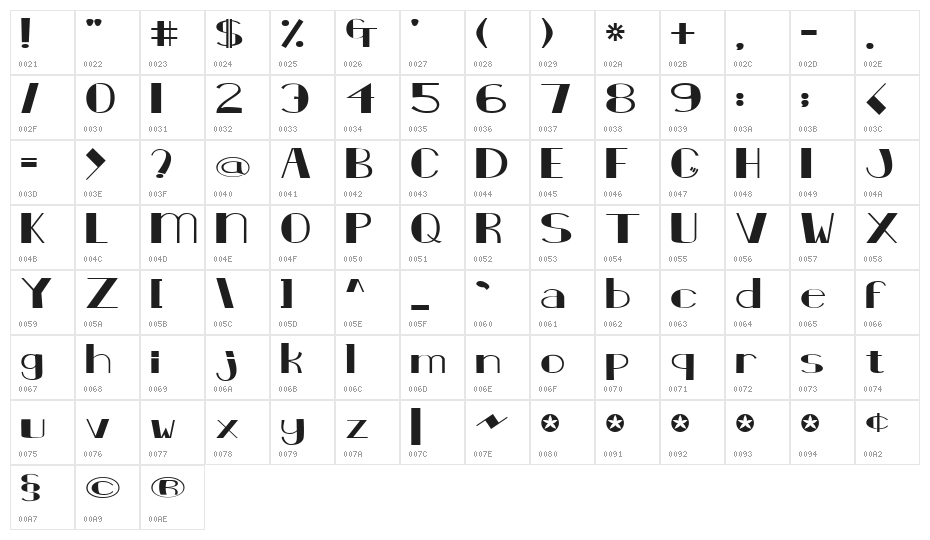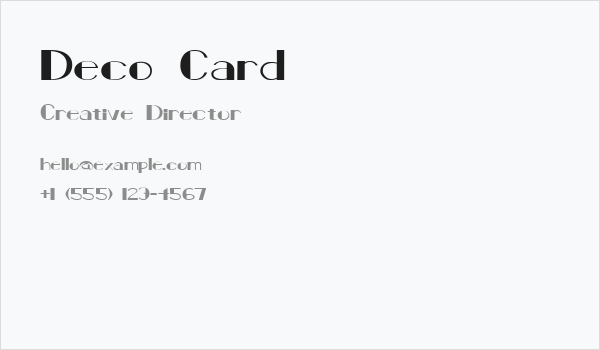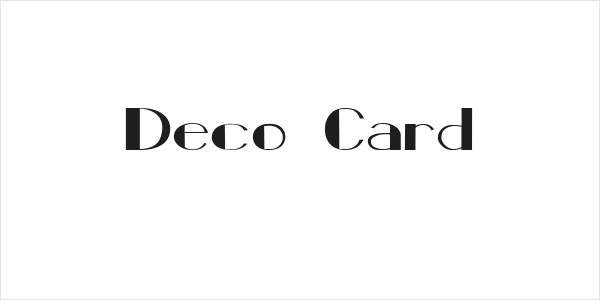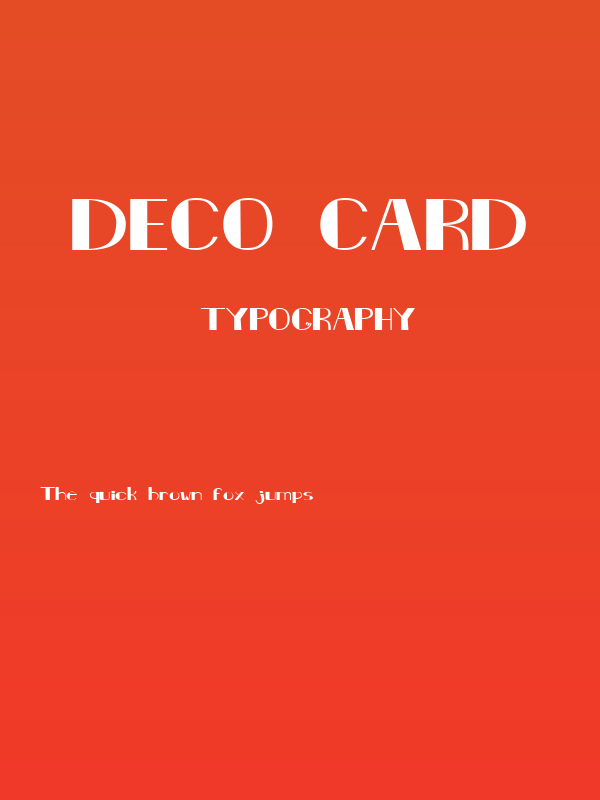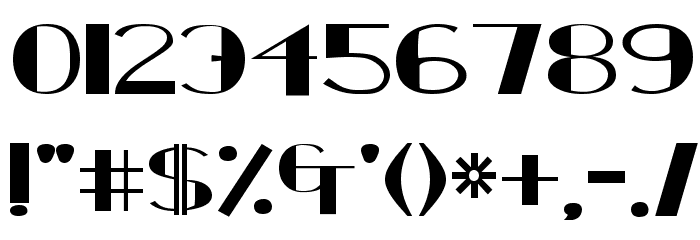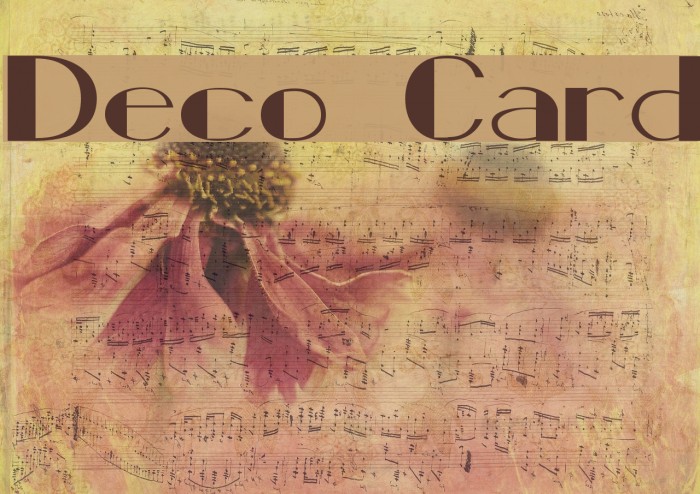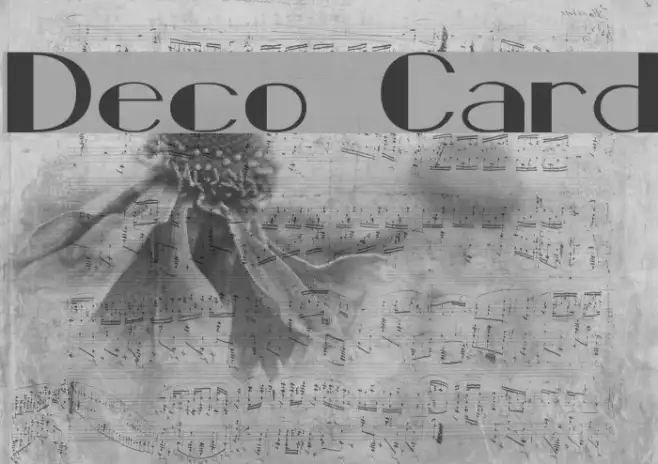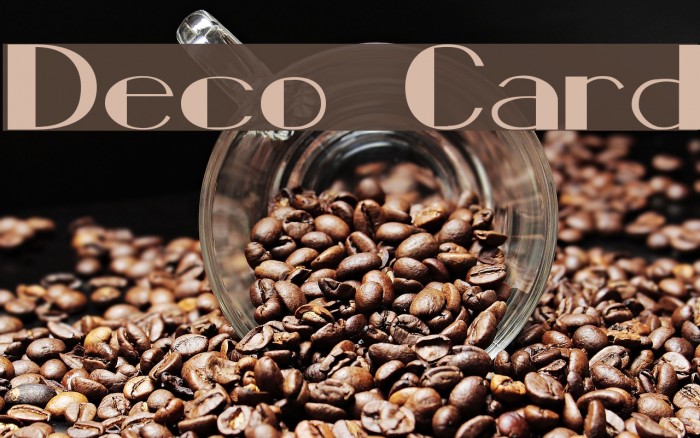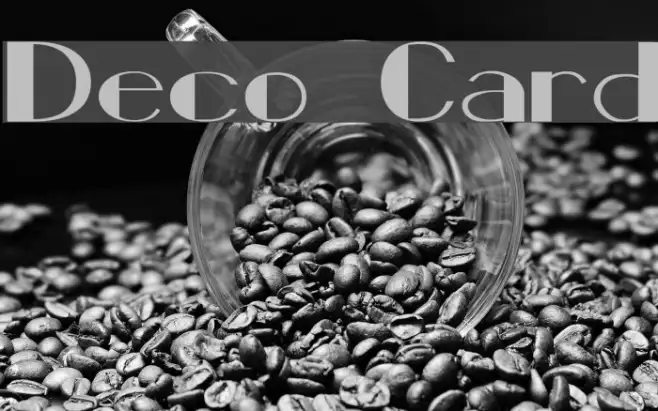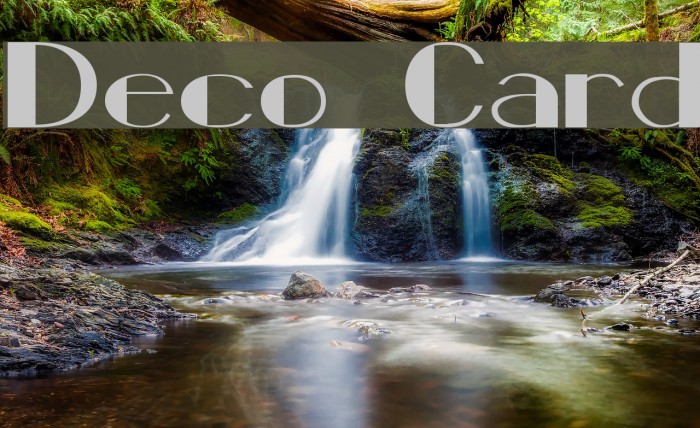
Deco Card Font
Deco Card Description
This font exhibits a striking Art Deco influence, characterized by its geometric shapes and bold, clean lines. The uppercase letters display a unique blend of curves and angles, creating a sense of elegance and modernity. The lowercase letters maintain a consistent style, with some characters featuring distinctive flourishes that add to the font's decorative appeal. The numerals are bold and easily legible, while the special characters complement the overall design with their stylish forms. This font's high contrast in stroke thickness enhances its visual impact, making it suitable for a variety of creative applications.
| Proposed Projects | Ideal for branding, posters, invitations, and any project requiring a vintage or elegant touch. |